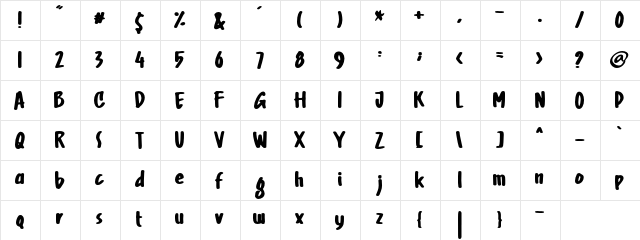
Ghoust Solid Regular
| Designer | Muhammad Ridha Agusni, Siti Saribanon Nurjannag |
Design Context for Ghoust Solid Typeface
Ghoust Solid is a composed and adaptable typeface that performs quietly and consistently across a wide range of design contexts.